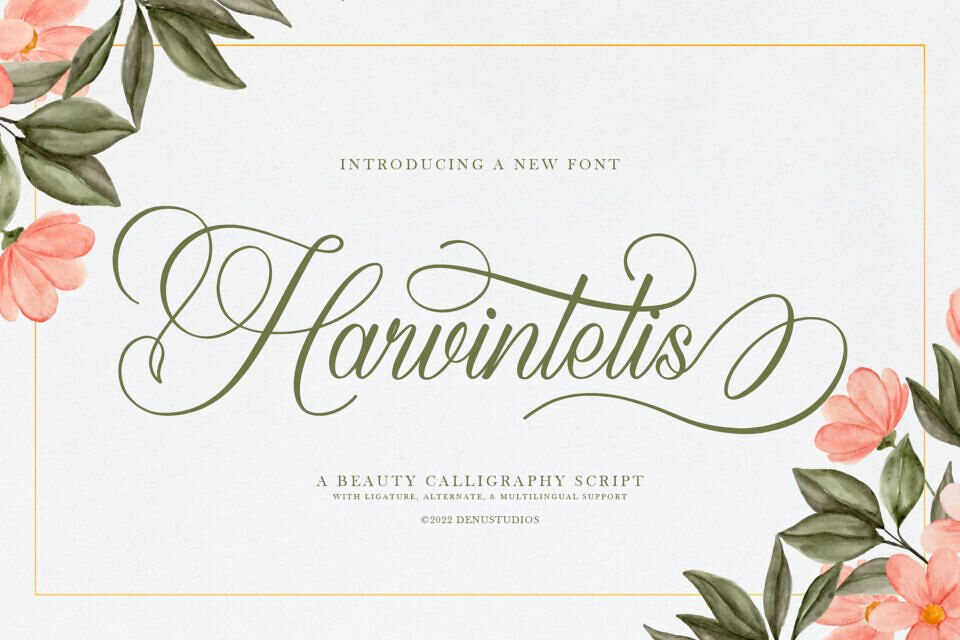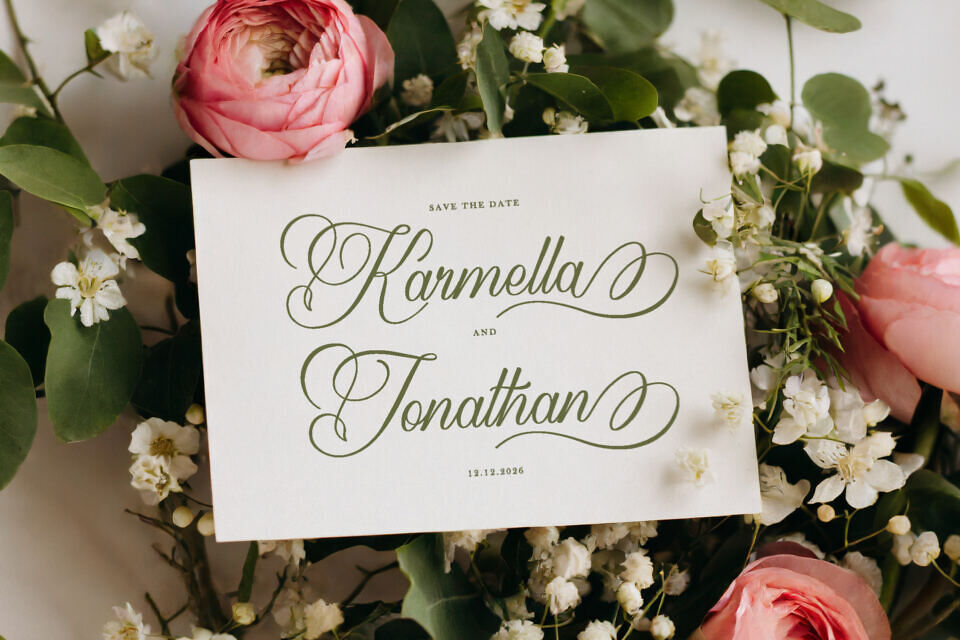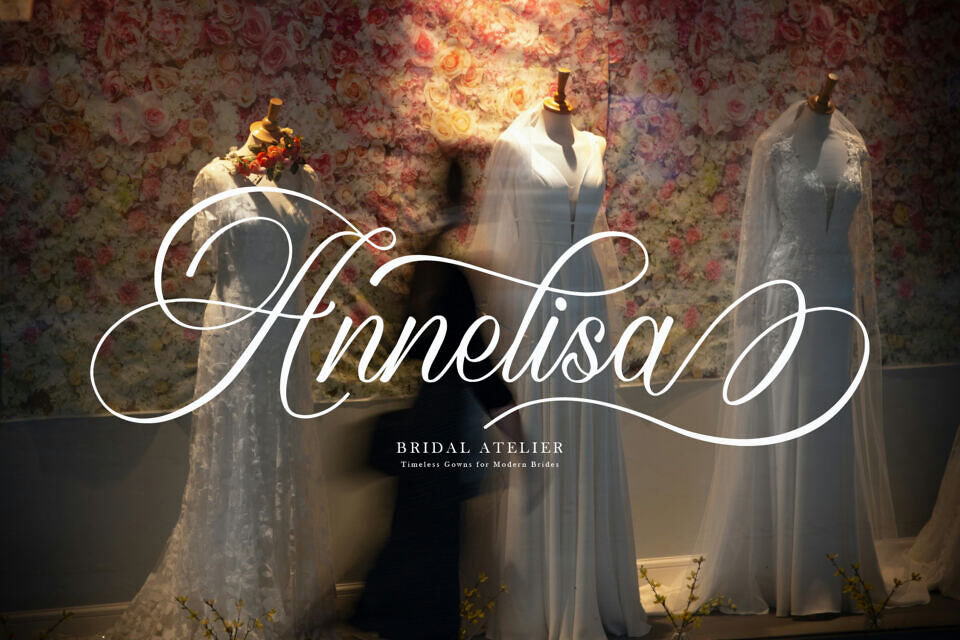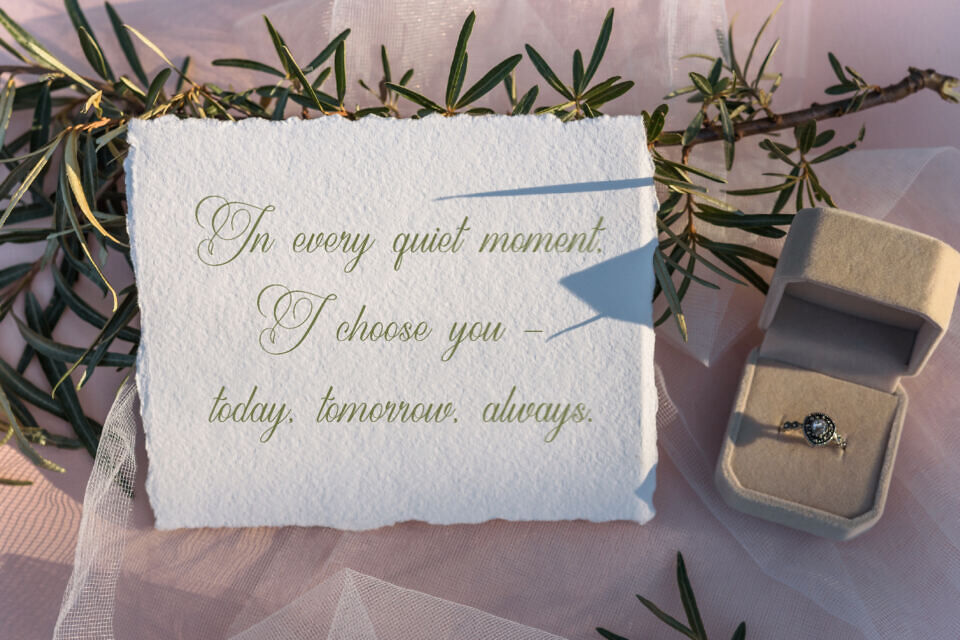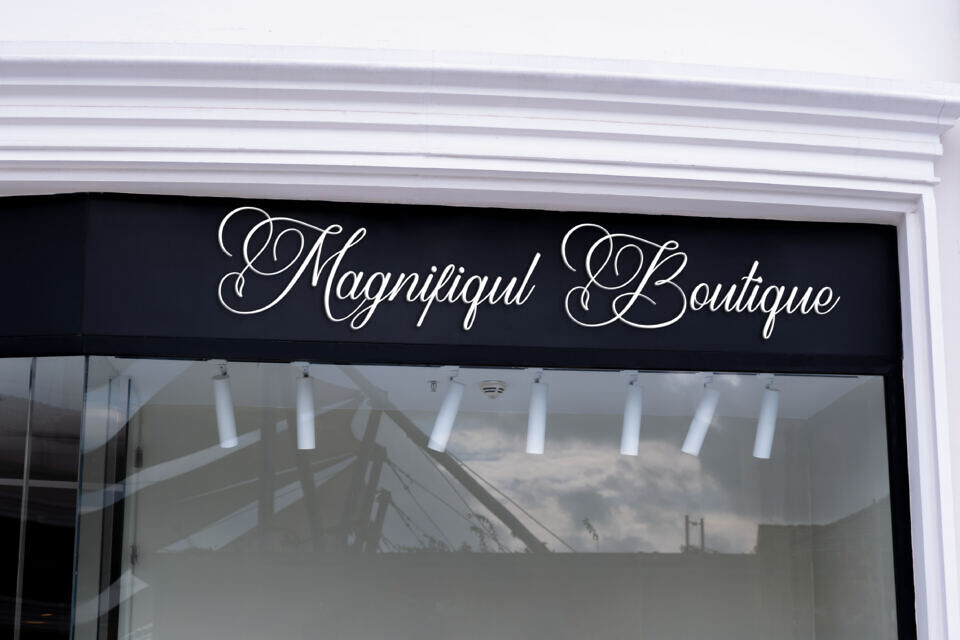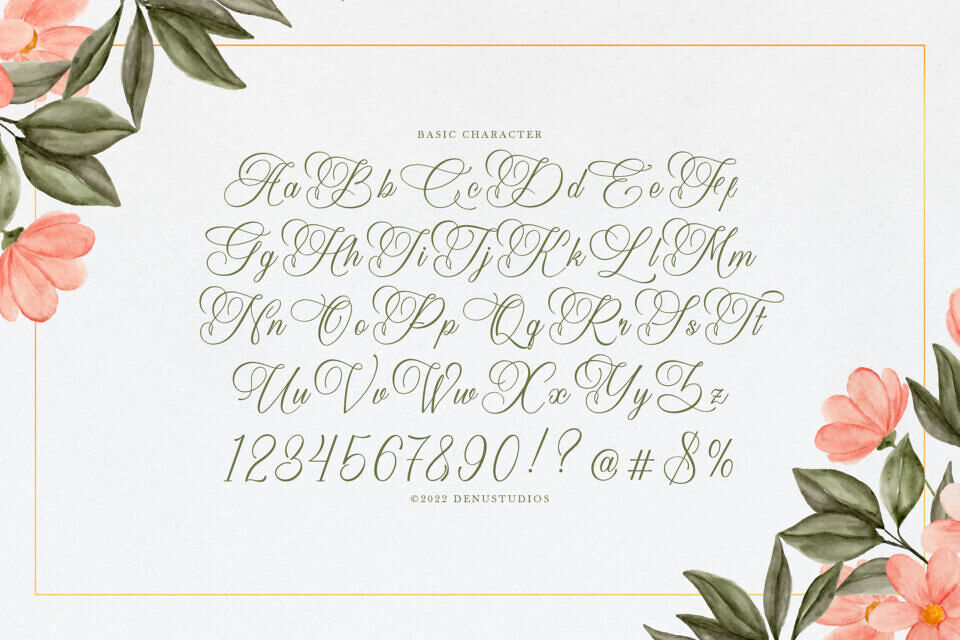
Harvintelis Font
Harvintelis is a stunning calligraphy script with intricate curves and delicate flourishes. Its rhythmic flow evokes the feel of hand-inked art, bringing romance and luxury to any design.
With multilingual support and extensive alternates, this beautiful font is perfect for wedding stationery, offering a custom and high-end look that elevates any project with its sophisticated details.